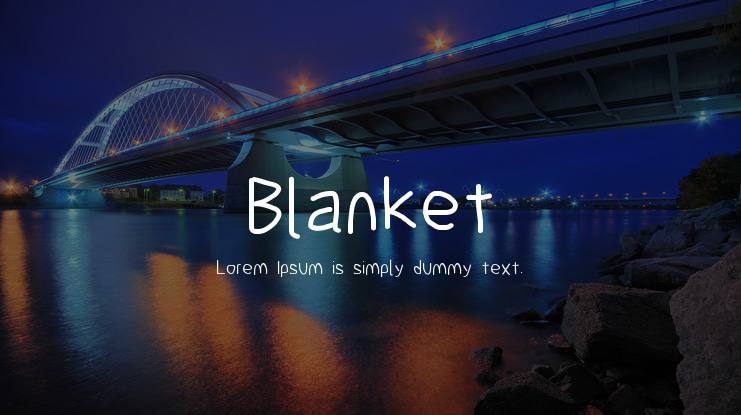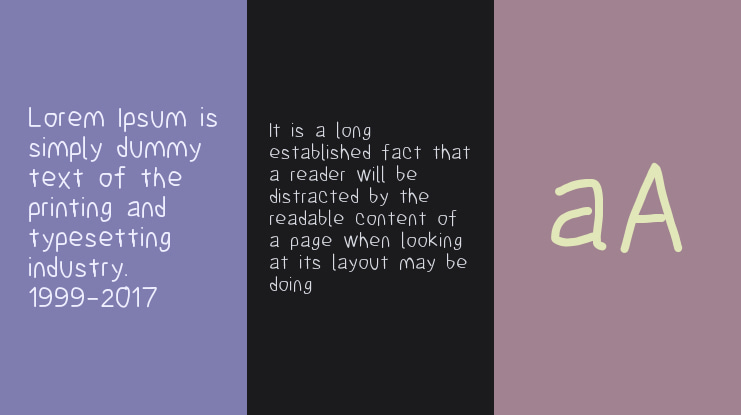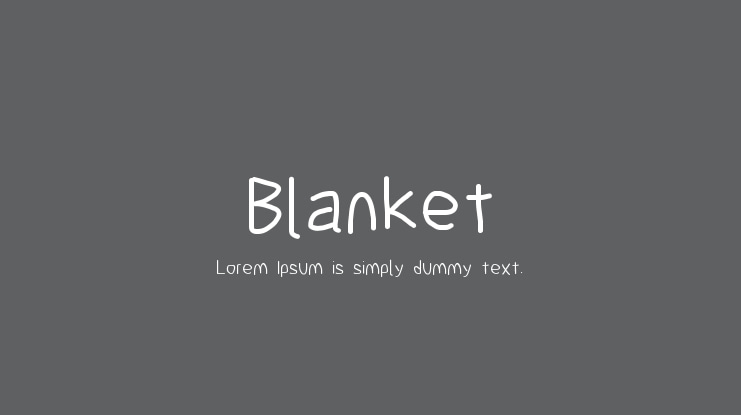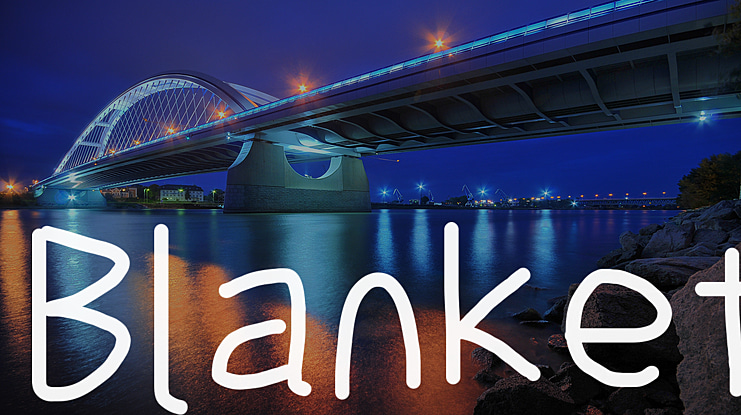
Blanket Font Family
This Handwriting style font had several display weights including a few ones that are tests of a few new ideas for making new display variants in future releases.